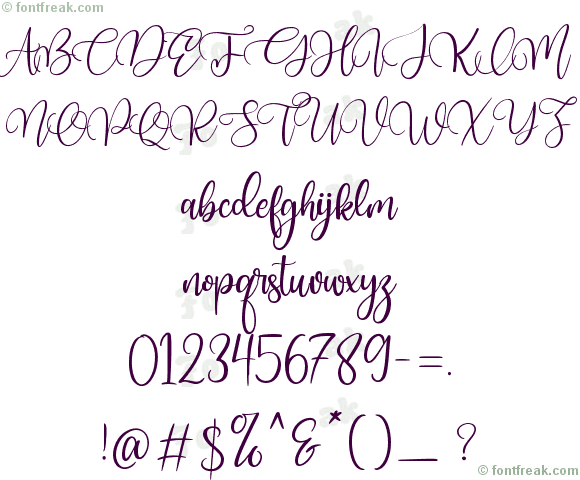
hi Mellati
The hi Mellati font by Abas Creative is a captivating script typeface that effortlessly combines elegance with a modern flair. Released in 2020, this font showcases a refined aesthetic characterized by its fluid strokes and graceful curves. The stroke weight is consistent, with slight variations that add a touch of sophistication, while the contrasting elements create a dynamic visual appeal. The spacing is well-balanced, allowing for legibility even in longer texts, making it versatile for various design applications.
The hi Mellati font is particularly suited for a range of creative projects. It shines in wedding invitations, where its romantic style can beautifully convey heartfelt sentiments. Additionally, it works wonderfully for branding materials, such as logos for artisanal shops or boutique businesses, where a personal touch is essential. Restaurant menus benefit from the font’s inviting appearance, enticing diners with its warm and friendly vibe. Furthermore, the hi Mellati font can enhance social media graphics, adding a stylish element to promotional posts and stories that engage viewers.
Targeted primarily at graphic designers, content creators, and small business owners, this font provides a unique option for those looking to make a statement in their work. Its versatility and charm make it a go-to choice for various creative endeavors.
What sets the hi Mellati font apart is its ability to blend contemporary design with timeless elegance. The result is a typeface that not only stands out visually but also conveys emotion and personality. For anyone in search of a distinctive script font, the hi Mellati font free download is an excellent choice that can elevate any project with its unmistakable charm.